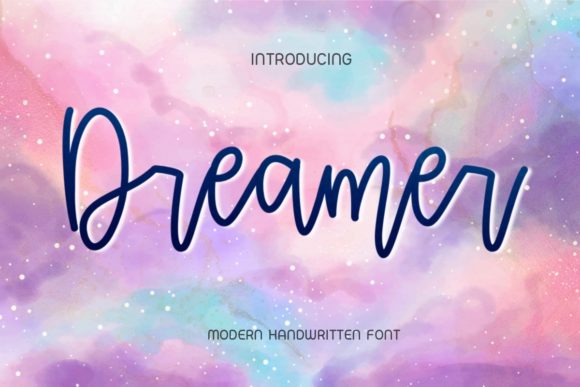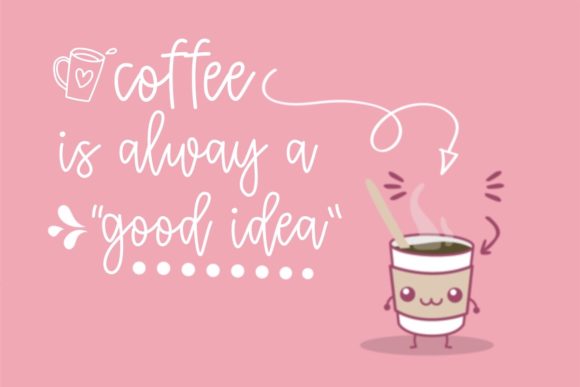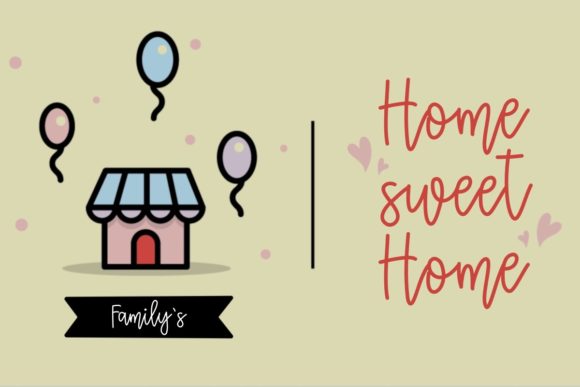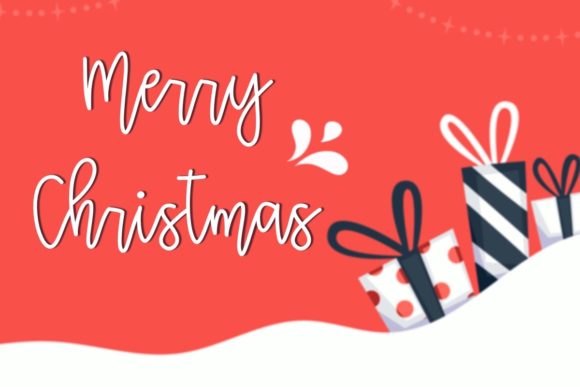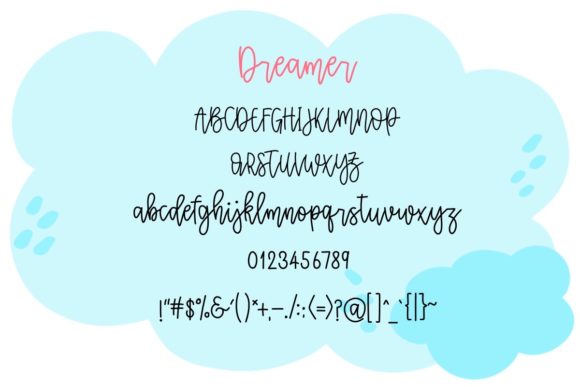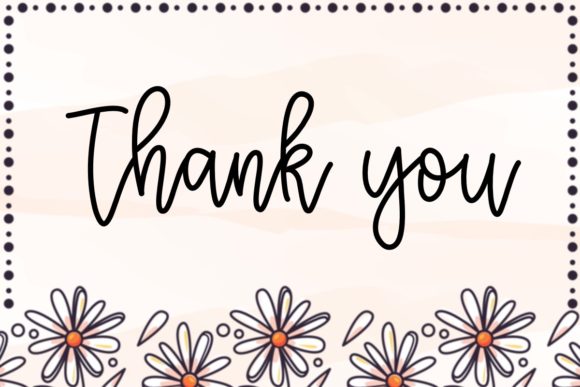
Dreamer Font
About Dreamer Font
Dreamer is a magical cute and casual handwritten font. It features an incredibly cutie style, while still keeping a friendly feel. This font is the perfect for making gorgeous wedding invitations, beautiful stationary art, eye-catching social media posts, logos, branding, cute greeting cards and much more!